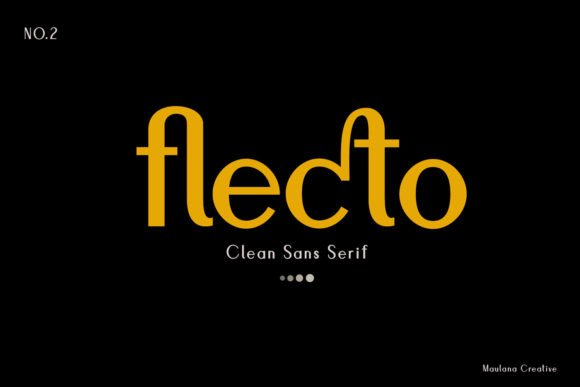
Unlocking Creative Potential with Flecto Font
Have you ever stared at a blank canvas, struggling to find the perfect combination of style and substance? You’re not alone. As creatives, we’ve all been there – desperate for that one element that brings our vision to life. And sometimes, it’s just a matter of finding the right font.
Enter the Flecto Font, a modern display font designed to add an artistic yet clean touch to any project. With its unique blend of elegance and edge, Flecto Font is the perfect companion for designers seeking to elevate their work. Whether you’re crafting a bold logo, a striking headline, or a captivating graphic, Flecto Font is sure to bring your creative vision to the forefront.
As a valuable addition to any designer’s toolkit, Flecto Font offers unparalleled flexibility and versatility. Its clean lines, sophisticated curves, and dynamic flair make it an ideal choice for a wide range of projects – from fashion and lifestyle to technology and beyond.
Flecto Font Key Features
- Font Family: Flecto Font is a sans-serif typeface designed for modern and minimalist designs. It’s available in two weights: Regular and Bold.
- Unique Characteristics: Flecto Font features a unique blend of modern and minimalist design elements, with clean lines, geometric shapes, and a neutral color palette, making it perfect for corporate, tech, and wellness brands.
- Character Set: Flecto Font includes a comprehensive character set, including Latin, Cyrillic, and Greek alphabets, as well as a range of punctuation and symbol glyphs.
Flecto Font Review
I recently had the chance to work with the Flecto font, and I must say it’s a unique addition to any design project. ✨ One of the things I appreciate about Flecto is its versatility – it can be used for both body text and headings, making it a great choice for designers who need a font that can adapt to different contexts.
Another advantage of Flecto is its legibility. ✨ Even at smaller font sizes, the letters remain clear and easy to read, which is essential for ensuring that your content is accessible to your audience. Additionally, the font’s modern and sleek design makes it a great fit for contemporary designs and branding.
While Flecto is a solid font, there are a few limitations to consider. ⚠️ One of the main issues I’ve encountered is that Flecto can feel a bit sterile or lacking in character at times. This may be a problem for designers who want a font with more personality or emotional depth.
- Limited expressiveness
- May not be suitable for highly creative or artistic projects
In conclusion, Flecto is a solid choice for designers who need a modern, versatile font that’s easy to read. While it may not be the most exciting or expressive font on the market, it’s a reliable and professional option that can help take your designs to the next level.
Tips for Getting the Most Out of Flecto Font
For the best results with Flecto Font, consider the following tips:
– Use Flecto Font for titles and headings to add a touch of elegance.
– Pair Flecto Font with a sans-serif font for a clean and modern look.
– Experiment with different font sizes and styles to add visual interest.
Common Use Cases for Flecto Font
Flecto Font is commonly used in:
– Branding and marketing materials
– Web design and development
– Print design and publishing
– Digital products and user interfaces